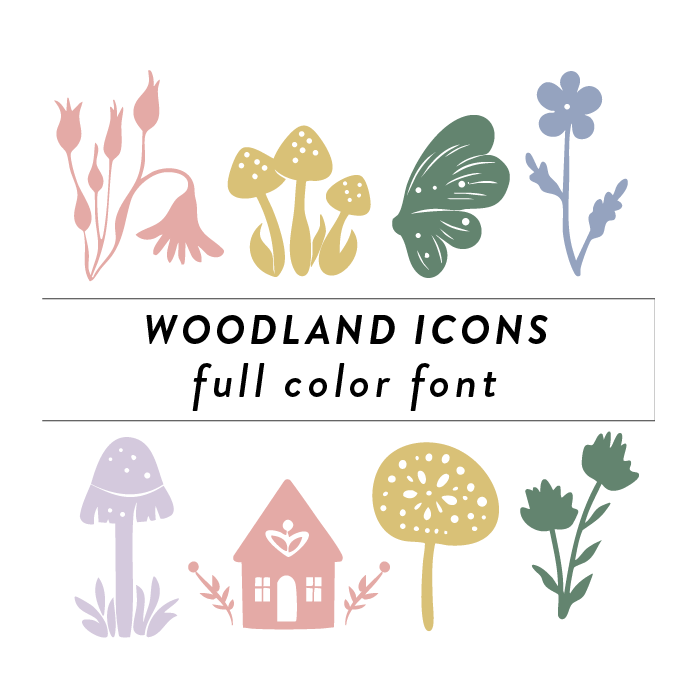
Woodlands Full Color Font is a whimsical and vibrant font design inspired by the beauty of nature. Featuring intricate floral and nature motifs, this font is perfect for adding a touch of charm and playfulness to any project. Its unique blend of colors and detailed elements make it stand out and perfect for creating eye-catching designs related to plants, animals, and flowers and fairies.